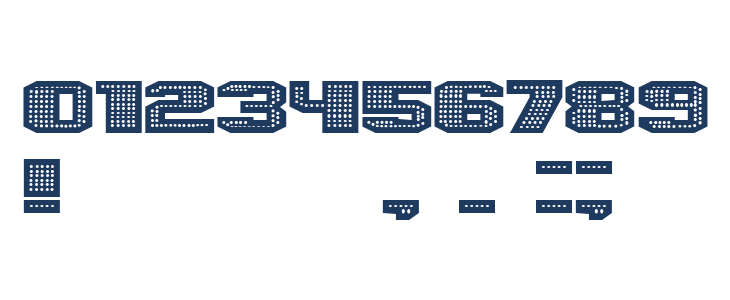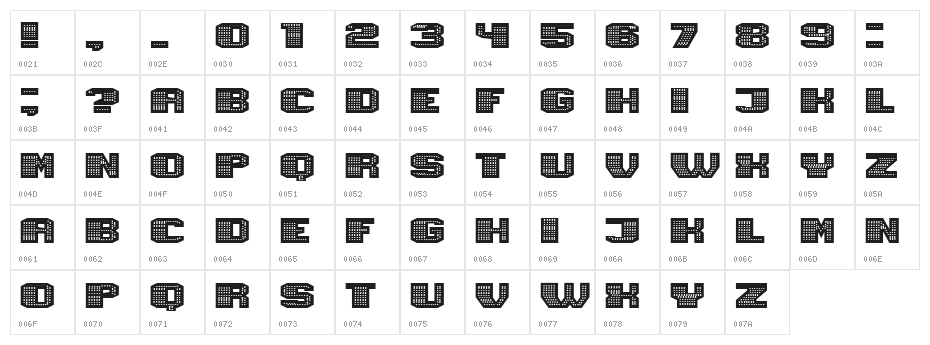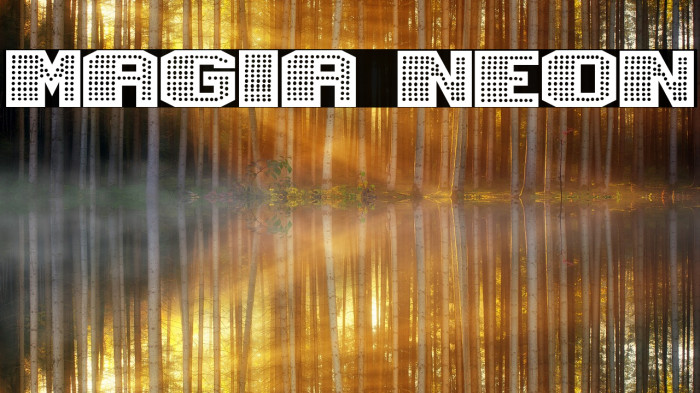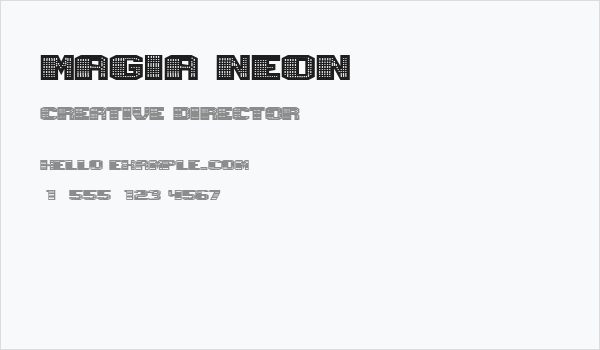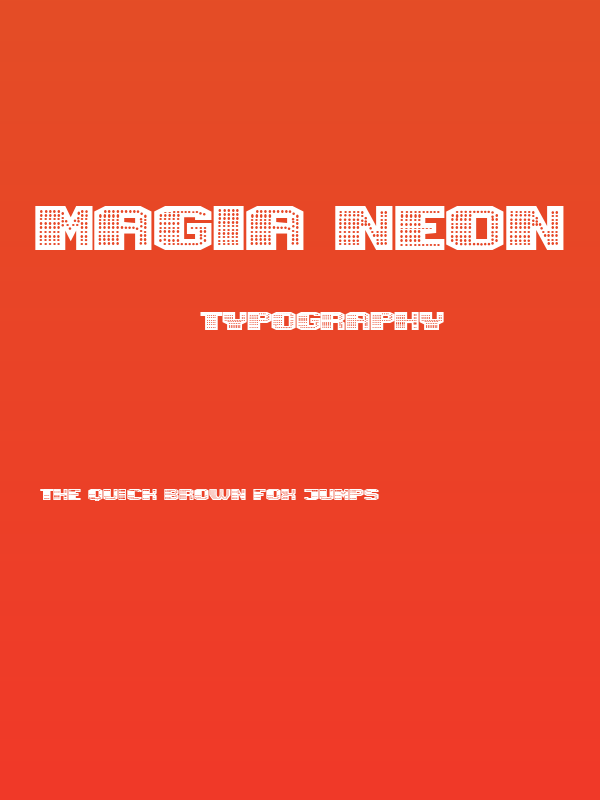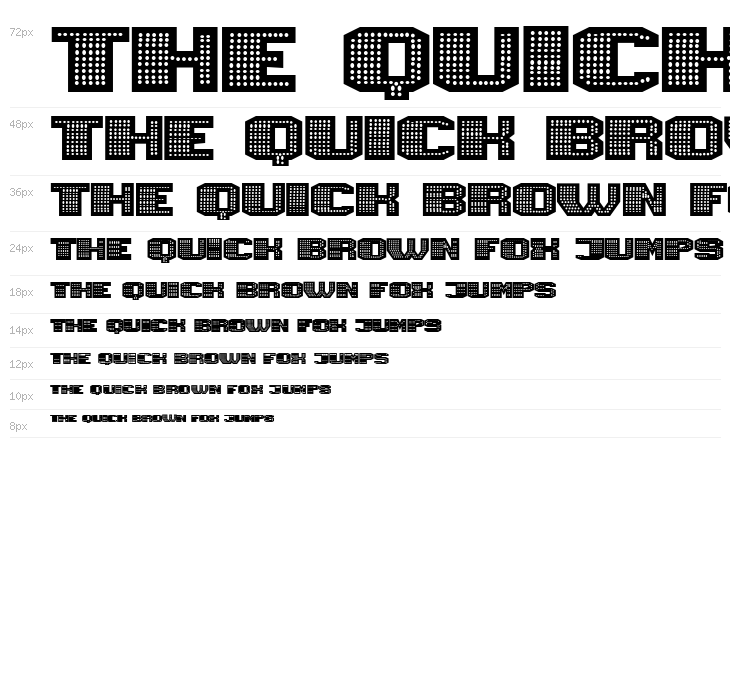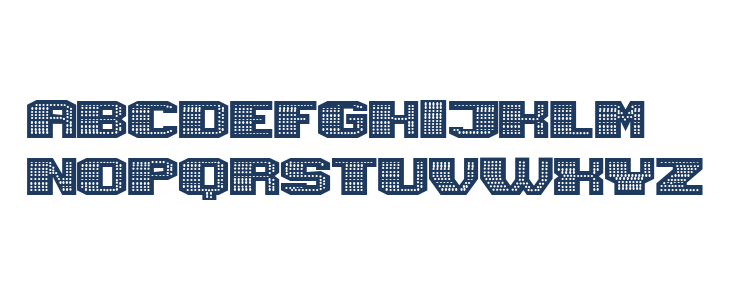
Magia Neon Font
Magia Neon Description
This font features a bold and decorative style, reminiscent of vintage neon signs. Each character is composed of a series of dots that mimic the appearance of illuminated bulbs, creating a lively and eye-catching effect. The uppercase and lowercase letters maintain a consistent design, with a geometric structure that enhances readability while maintaining a playful aesthetic. The numbers and special characters follow the same dotted pattern, ensuring a cohesive look across all elements. This font is ideal for projects that require a retro or theatrical touch, such as event posters, signage, or branding for entertainment venues.
| Use Case | Headlines, Logos, Signage |
| Proposed Projects | Event posters, signage, branding for entertainment venues, retro-themed designs. |